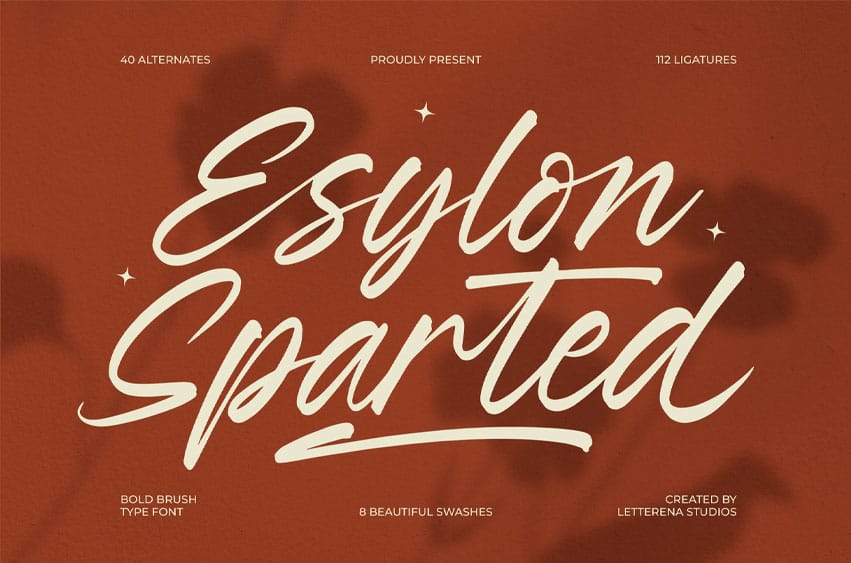
Esylon Sparted Font is suitable to complement your digital and printed creative products. This font is perfect for posters, social media posts, branding, personal projects, etc.